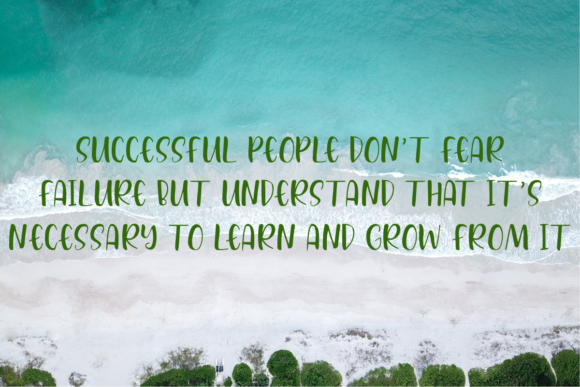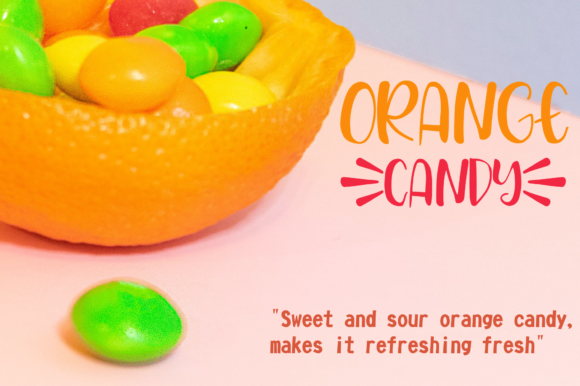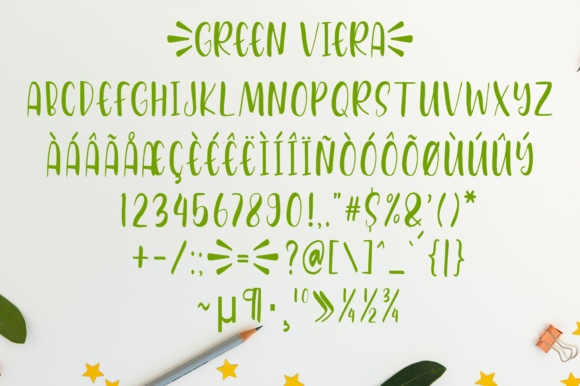
Introduction to Green Viera Font
Green Vierra is a relaxed and cute handwritten font.
Fall in love with its authentic feel and use it to create gorgeous wedding invitations, beautiful stationary art, eye-catching social media posts, and cute greeting cards .
Key Features of Green Viera Font
Why Choose Green Viera Font?
Green Viera Font offers exceptional quality and versatility, making it a valuable addition to your design toolkit. Whether you’re creating for personal projects or commercial use, Green Viera Font delivers professional results.